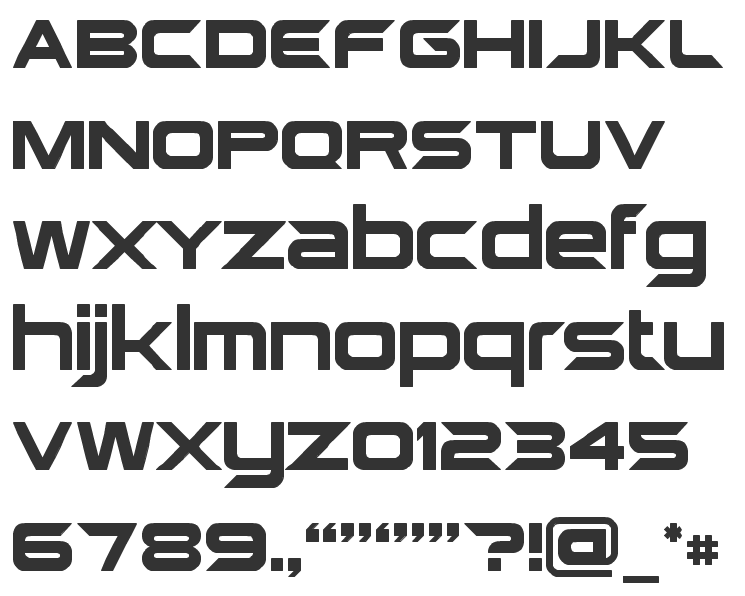
Cool Robotic Fonts 2022. Stencilcase by robotic attack fonts. Robota is a sans serif font family presented by rc graphics.
Turkey Sandwich By Robotic Attack Fonts.
The modern and elegant robota includes upper/lower case alphabets, numeral, punctuation, symbols, accented. It will take your crafting projects to the. Robota is a sans serif font family presented by rc graphics.
Stencilcase By Robotic Attack Fonts.
It Features Geometric Shapes, Straight Lines, And Zigzags For An Overall Modern.
Roboto Serif Is A Variable Typeface Family Designed To Create A Comfortable And Frictionless Reading Experience.
At the same time, the font features friendly and open curves. Basic robot display font is a techno sporty and weird display font, created by vintype studio. This font has two different styles, regular and italic, which will give your.